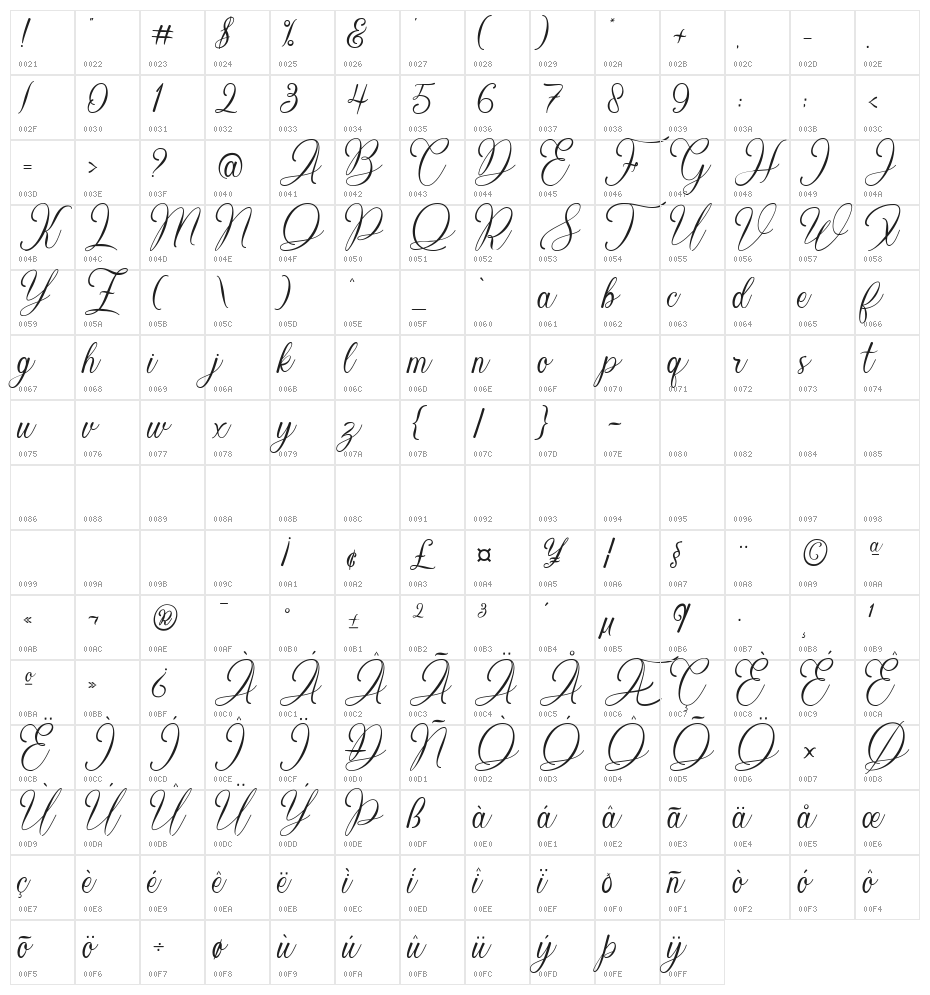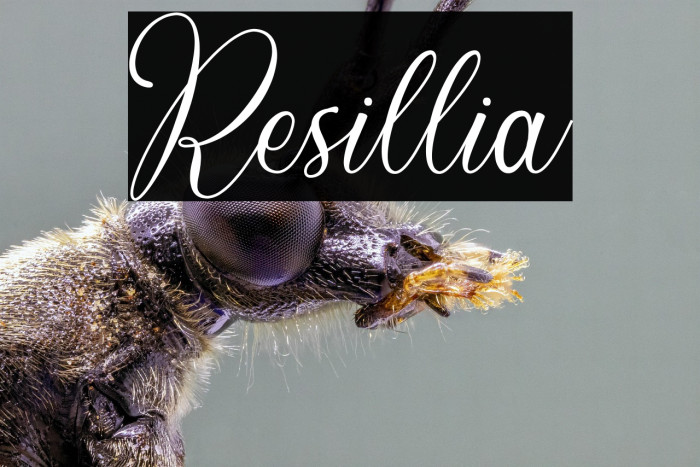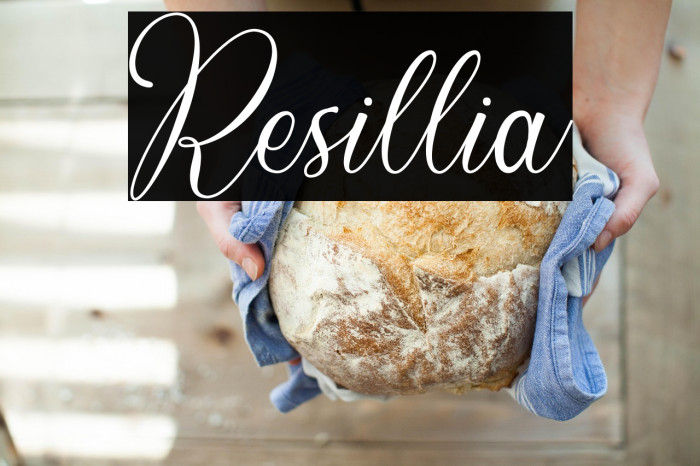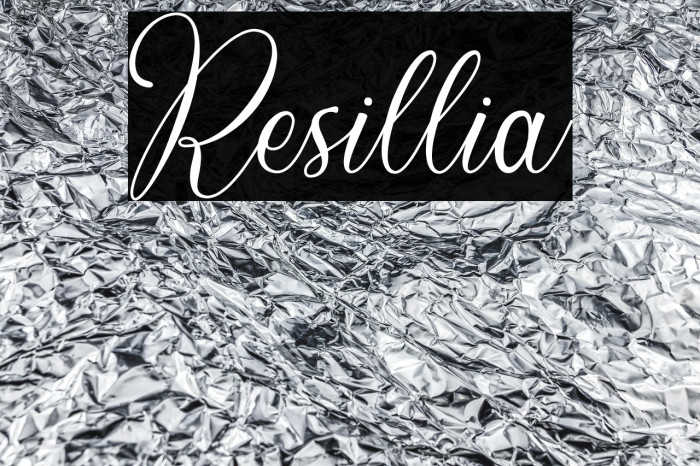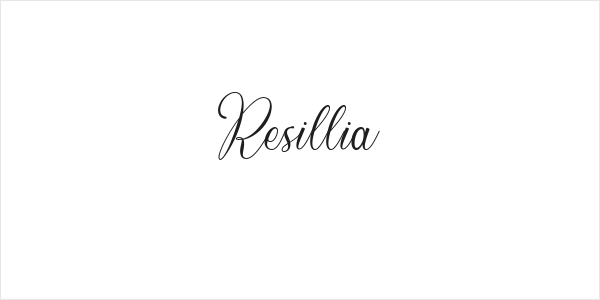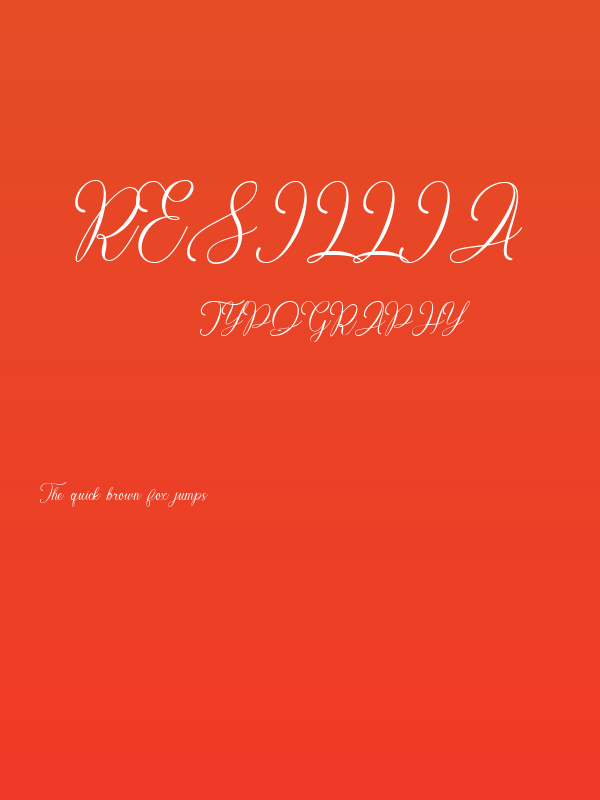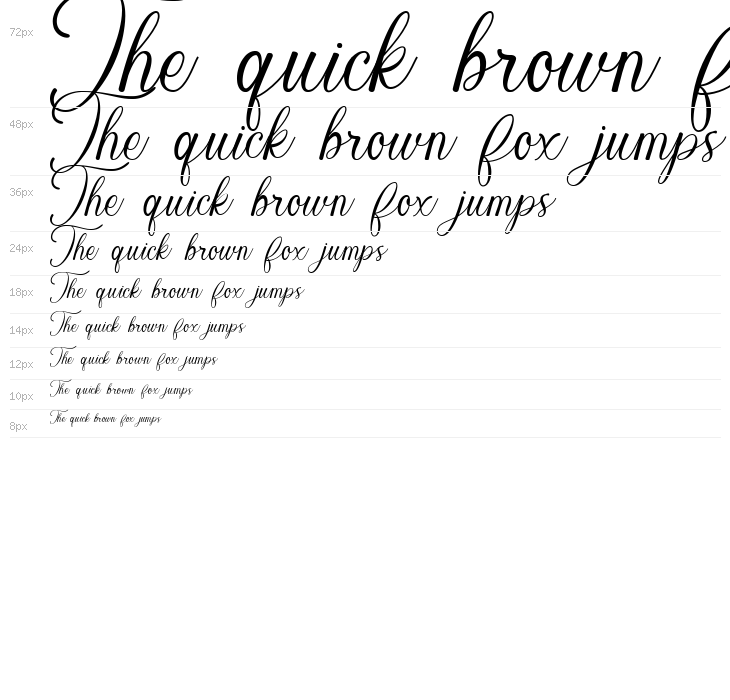
Resillia Font
Resillia Description
This elegant script font features a flowing, cursive style with smooth, connected strokes that evoke a sense of sophistication and grace. The uppercase letters are tall and slender, with intricate loops and swirls that add a decorative flair. The lowercase letters maintain a consistent flow, enhancing readability while preserving the font's artistic nature. Numbers and special characters are designed with the same attention to detail, ensuring a cohesive look across all text elements. The font's overall appearance is both classic and modern, making it versatile for various design applications.